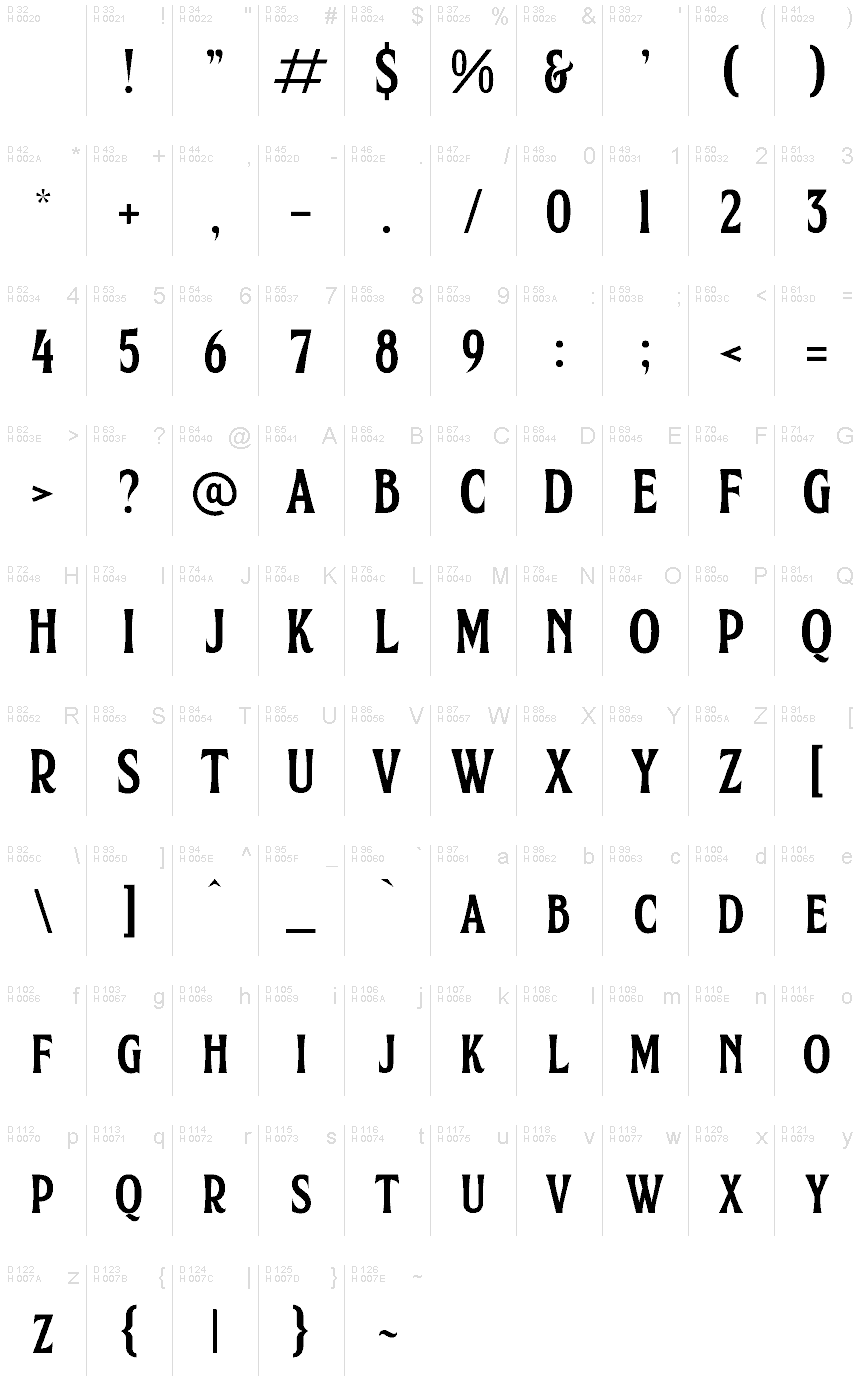
Marquen
Marquen font by Storytype Studio is a condensed serif font that exudes sophistication and modern elegance. With its distinctive serifs and decorative elements, it combines a classic touch with a contemporary appeal. Its slender and refined structure offers versatility while maintaining an undeniable presence.
This free serif font is suitable for high-end branding, luxury product packaging, editorial layouts in magazines, eye-catching logo designs, memorable business cards, elegant invitations, chic website headings, premium social media graphics, timeless book covers, and creative advertising campaigns.